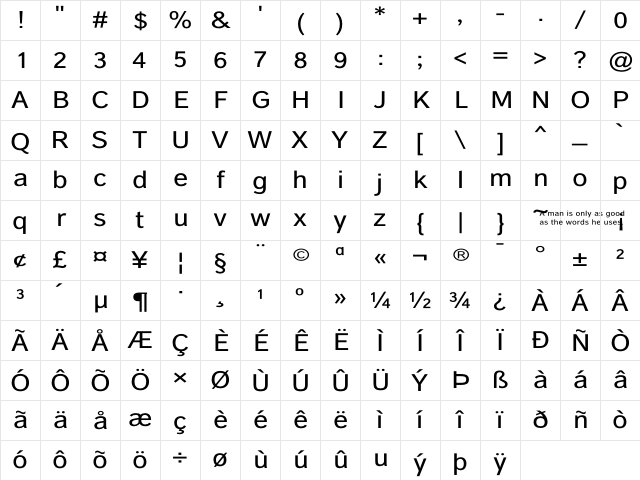
Carnova Wide is a composed and adaptable typeface that performs quietly and consistently across a wide range of design contexts.
Pro Tip: Use Carnova Wide in both headline and body roles to test its range before committing to a single application.